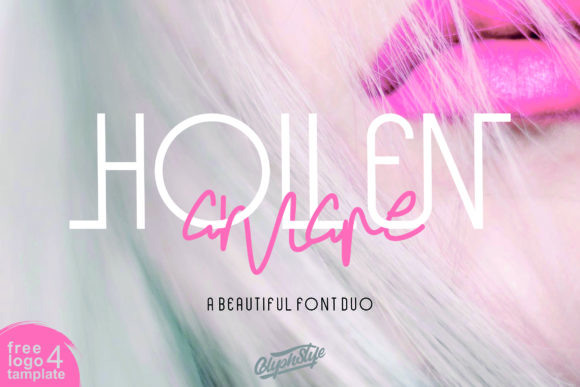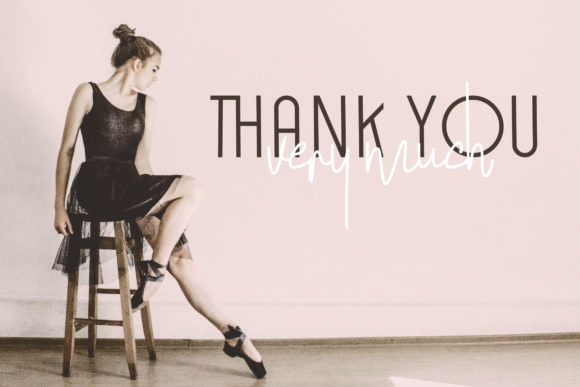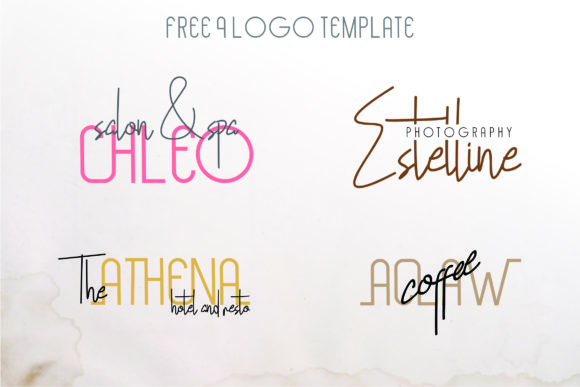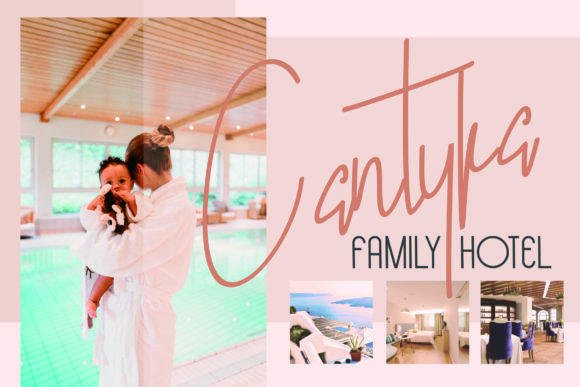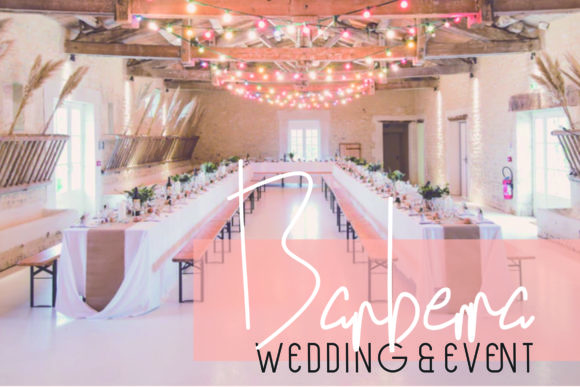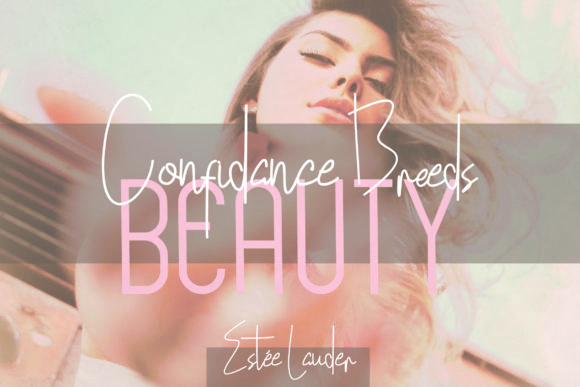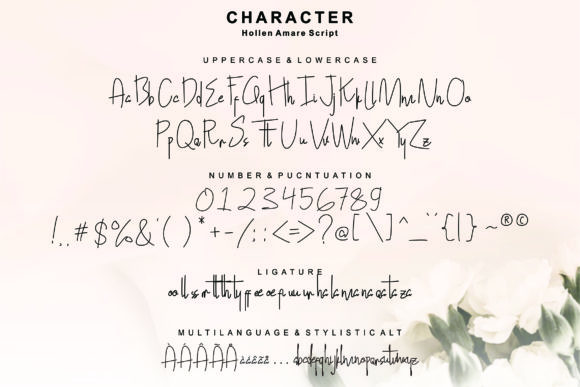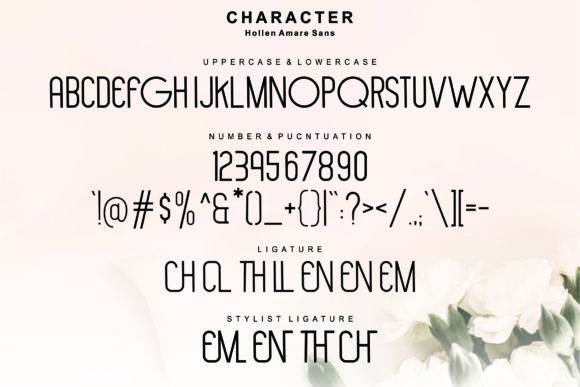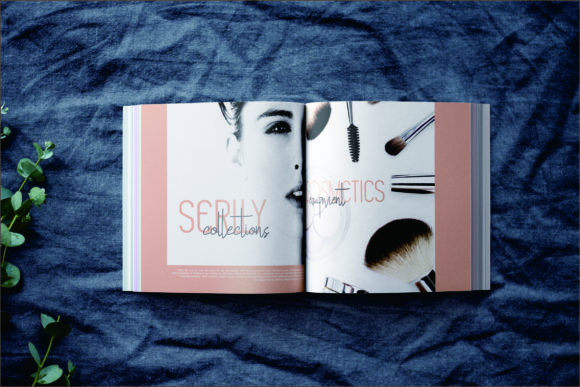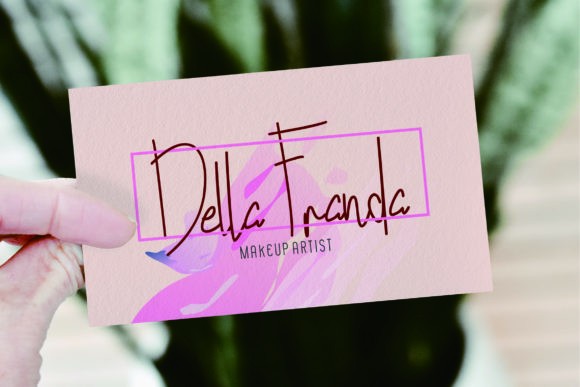
Hollen Amare Font
About Hollen Amare Font
Hollen Amare is a stunning font duo, consisting of a smart sans serif font and a handwritten script. Together, these fonts will turn any design project into a stand out!